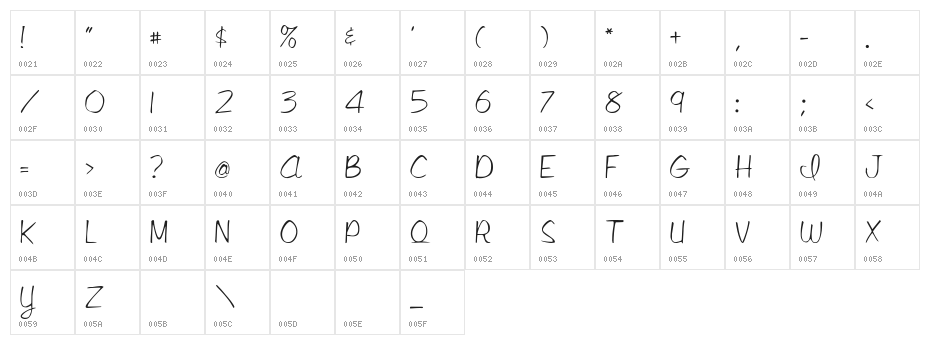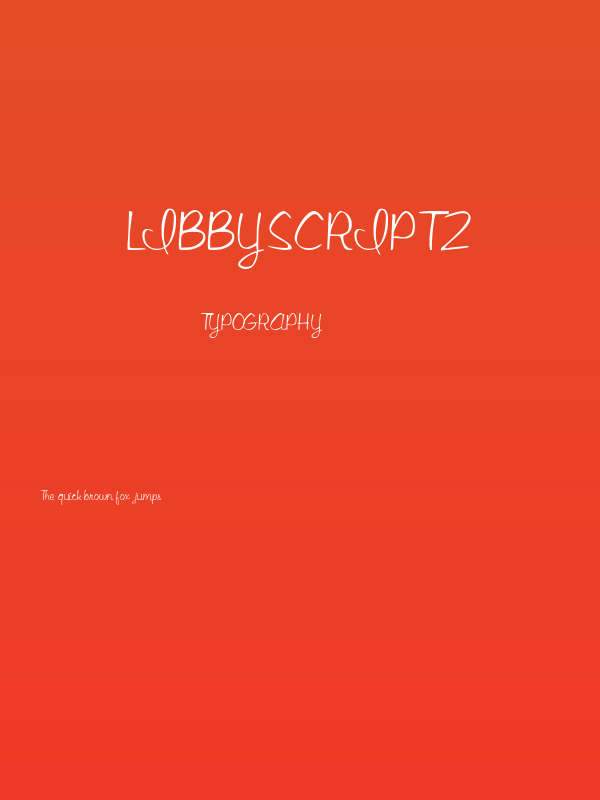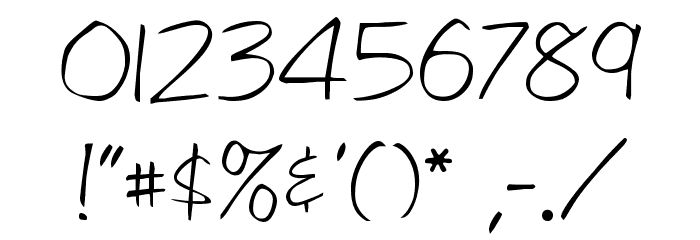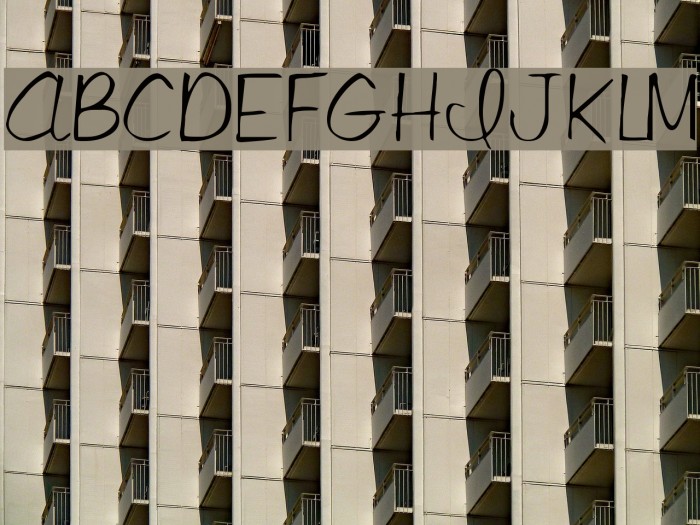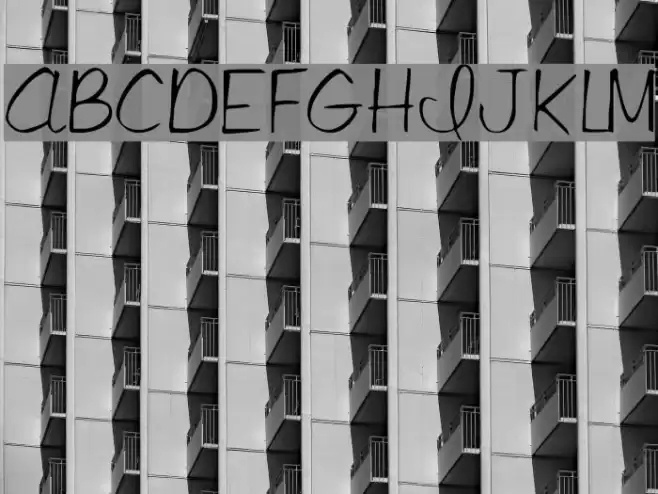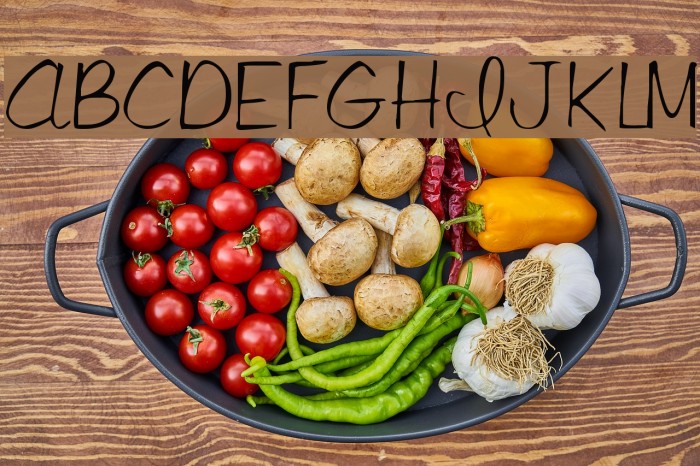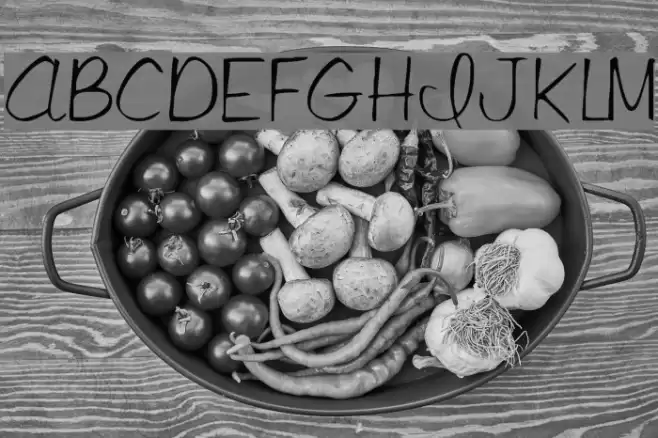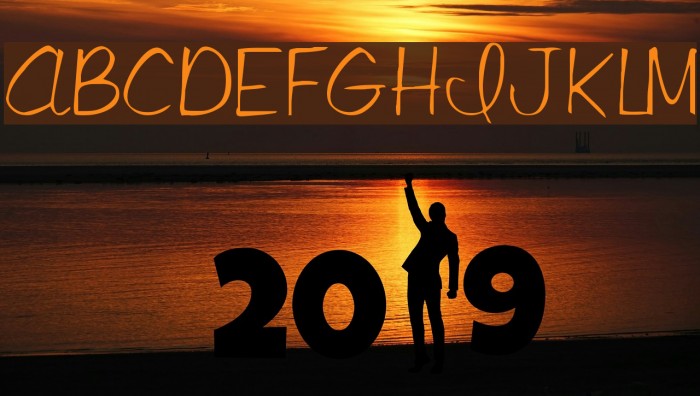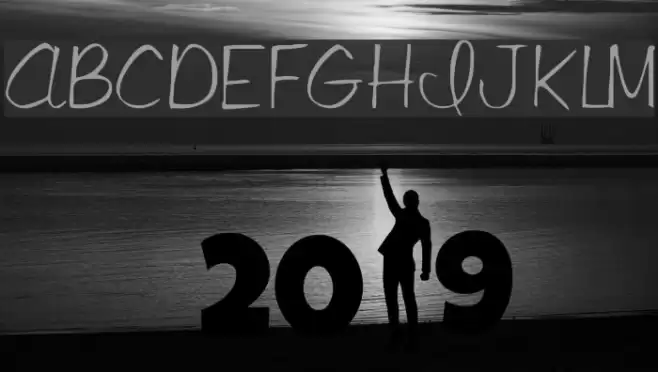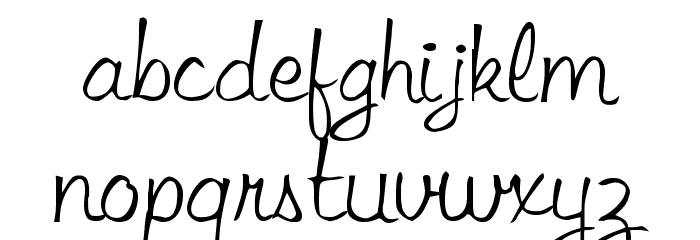
LibbyScript2 Font
| 全体的なスタイル | Casual |
| 用途 | Logos, Invitations, Greeting Cards |
| おすすめプロジェクト | Ideal for greeting cards, invitations, personal branding, and creative projects that require a friendly and informal touch. |